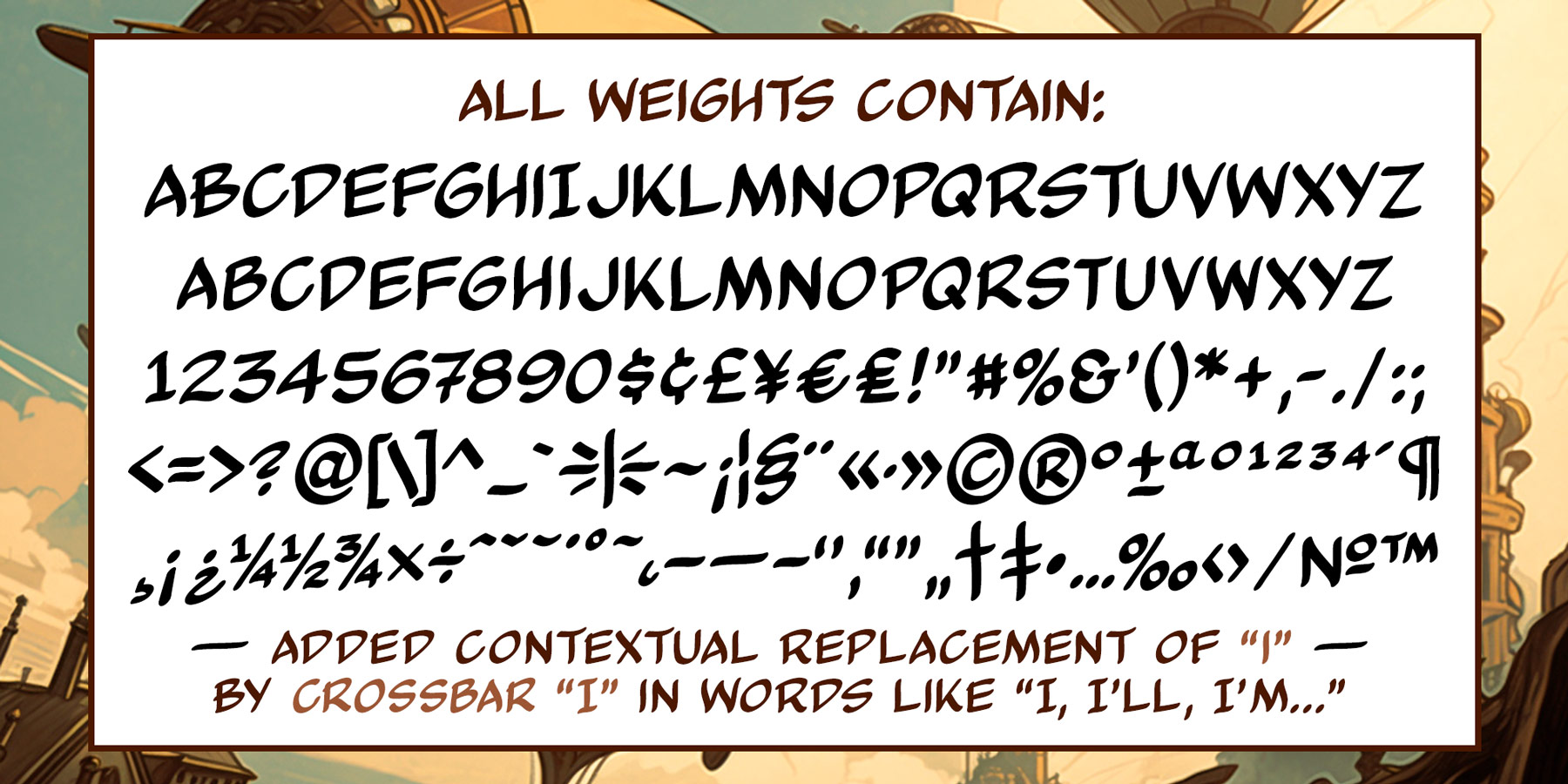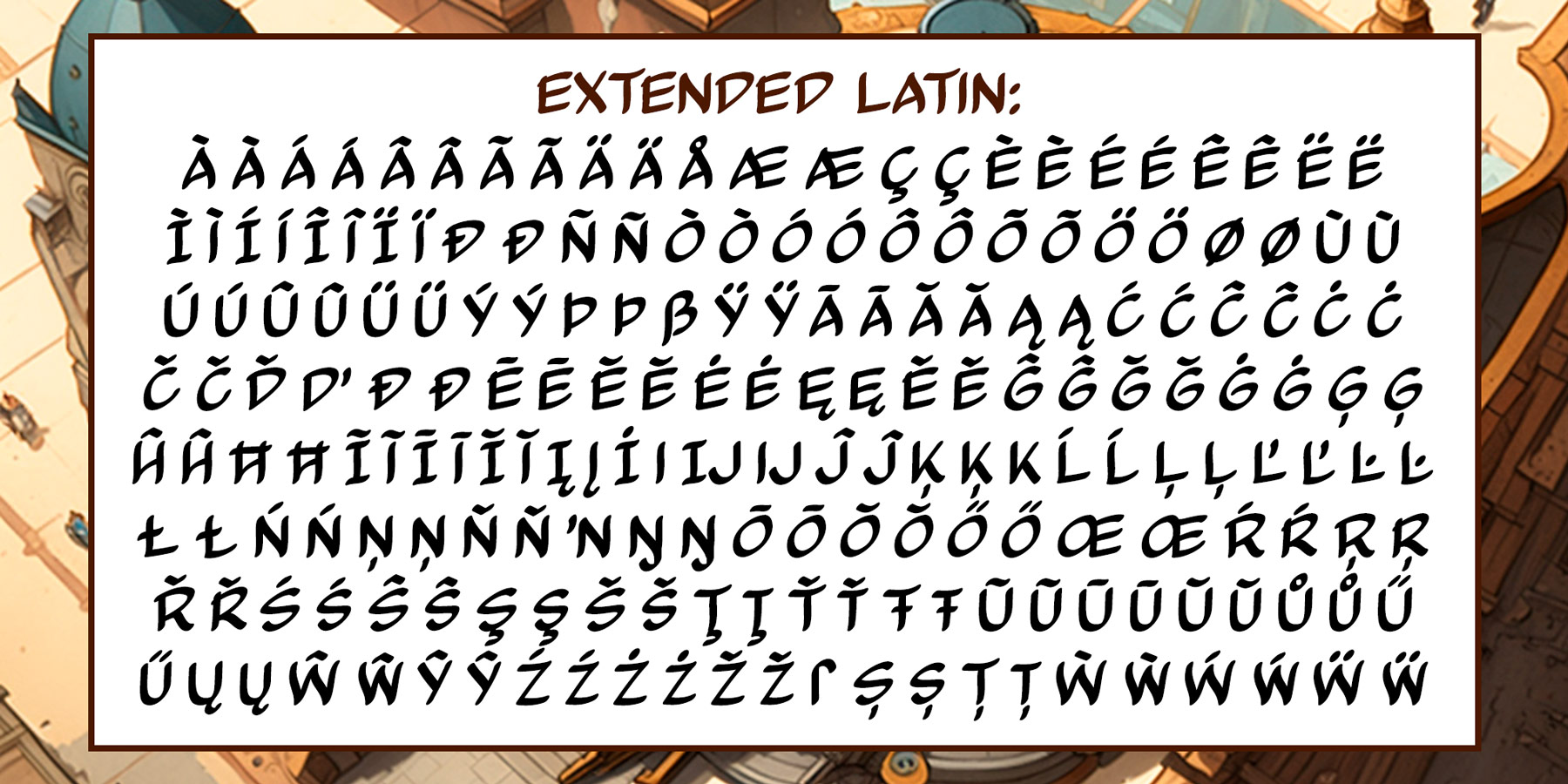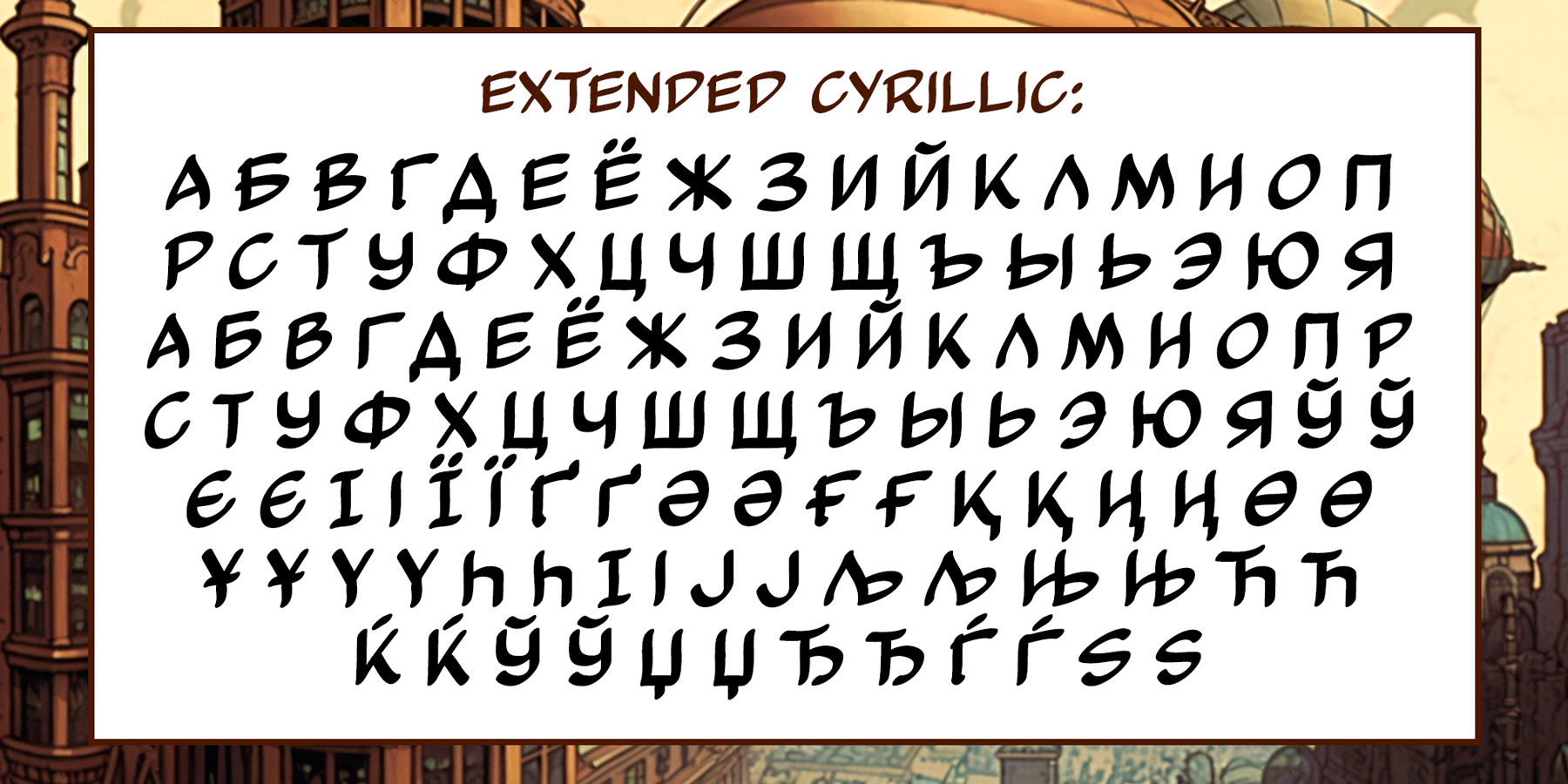
Airship Captain
Vintage comic book font family
IA Airship Captain is a good readable comic book dialogue font made with a marker with wavy lines, giving it uniqueness and recognition.
The family includes Regular, Italic, Bold, and Bold Italic. And contains a large number of kerning pairs.
Added extended Latin, extended Cyrillic and contextual autoreplacing crossbar “I” in words like I, I’m, etc.